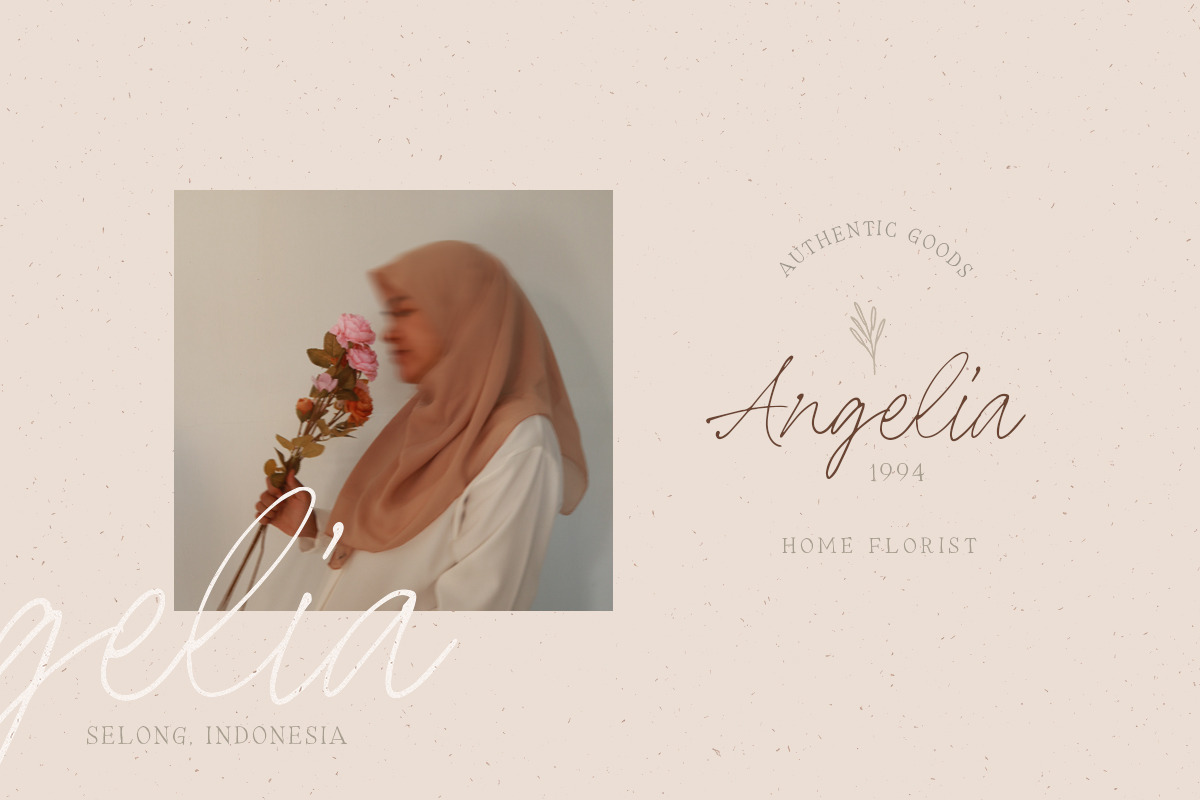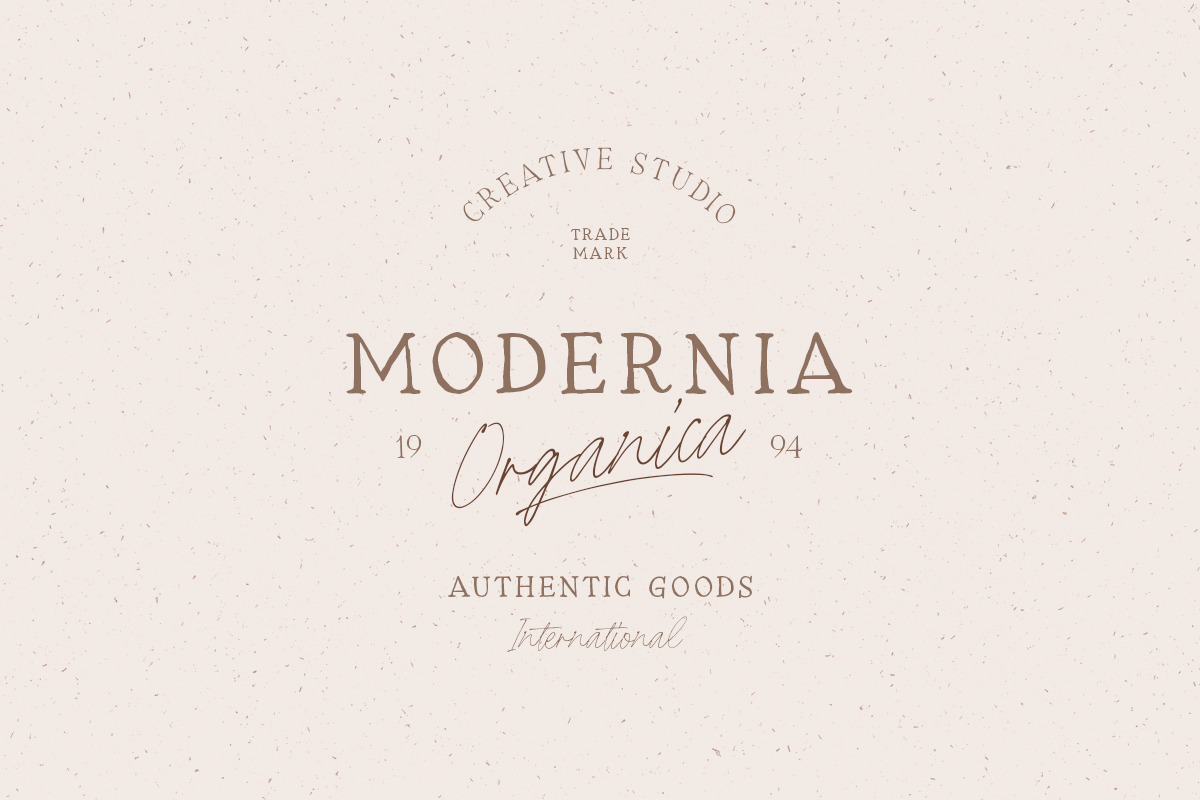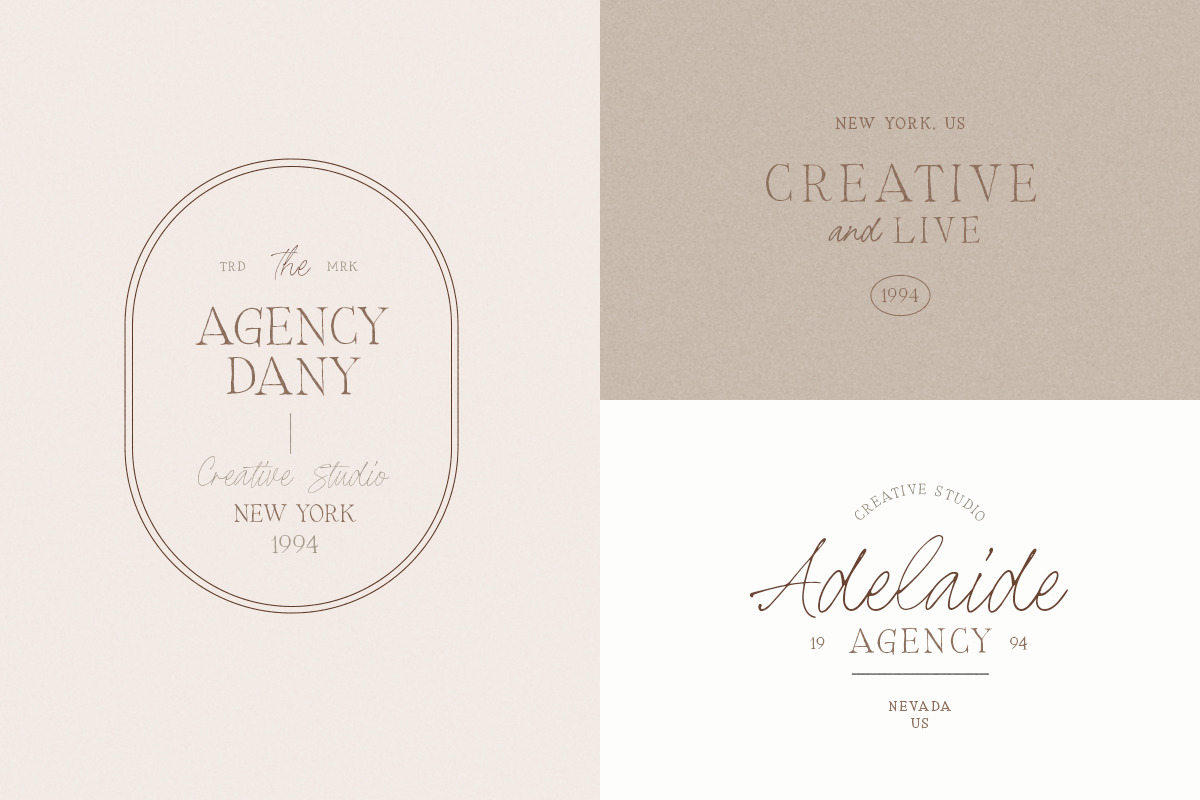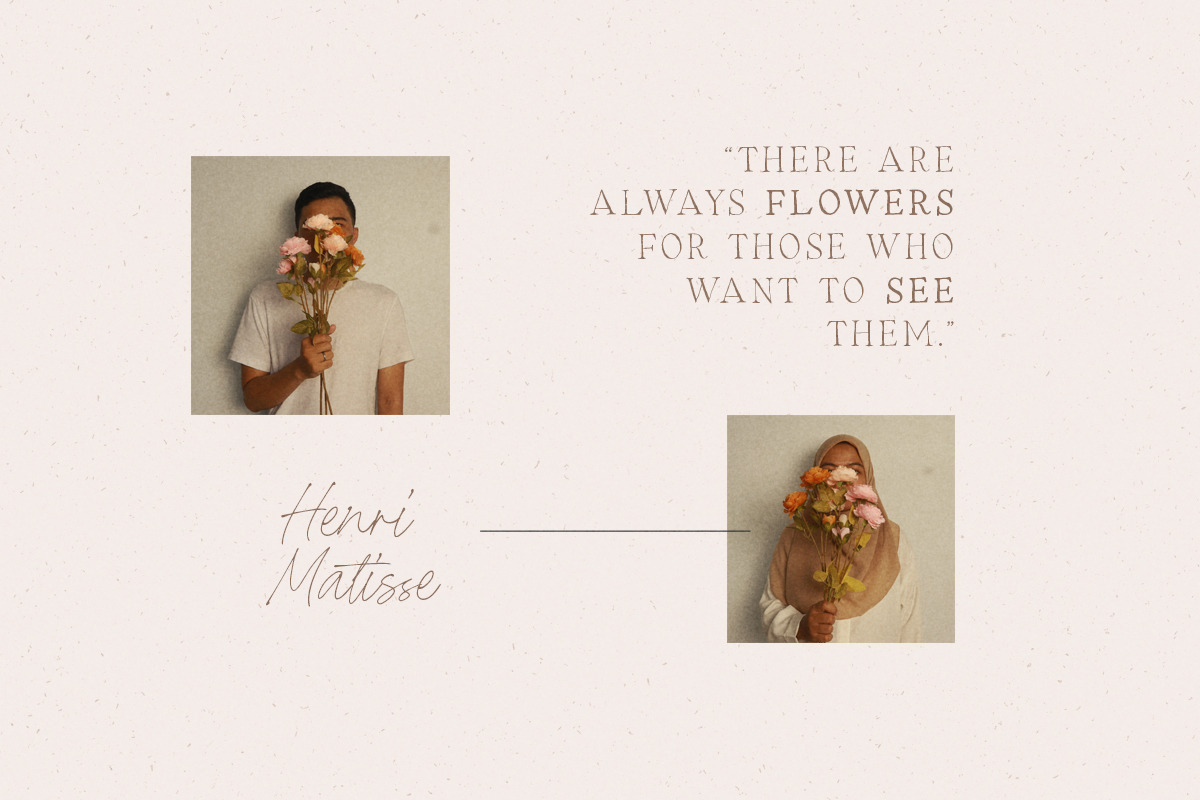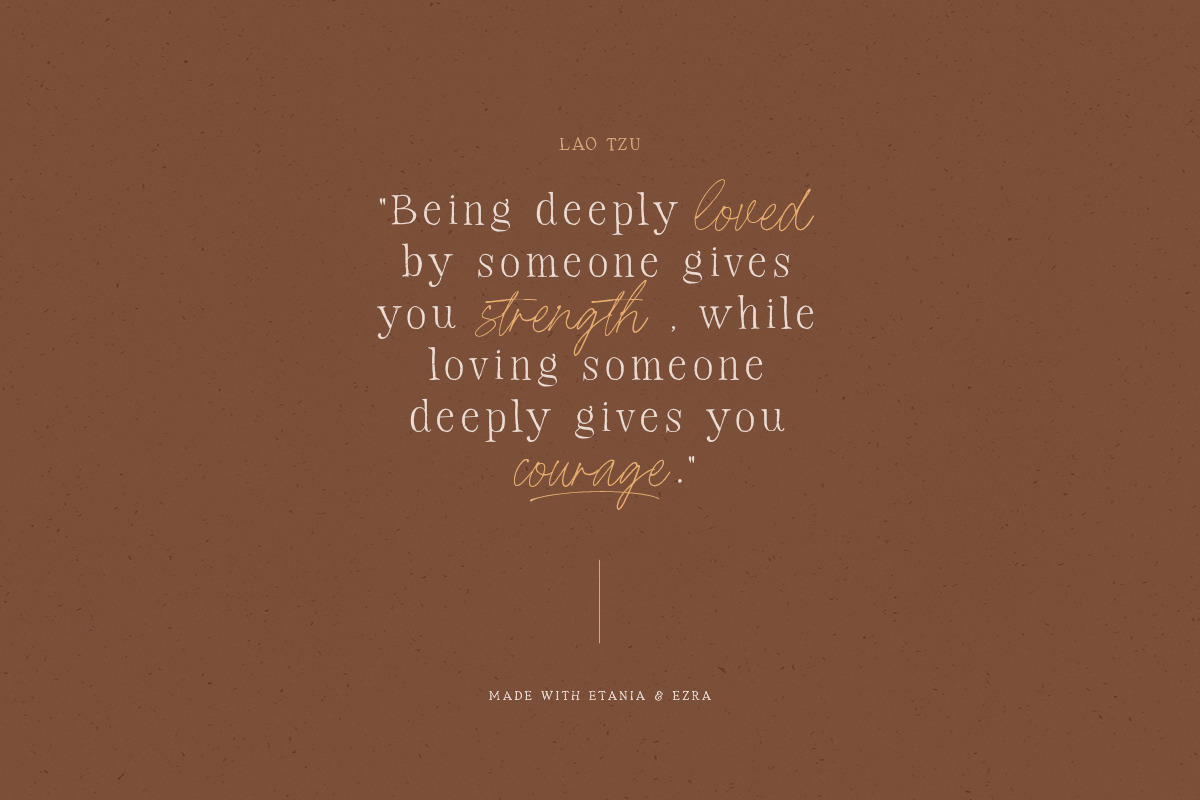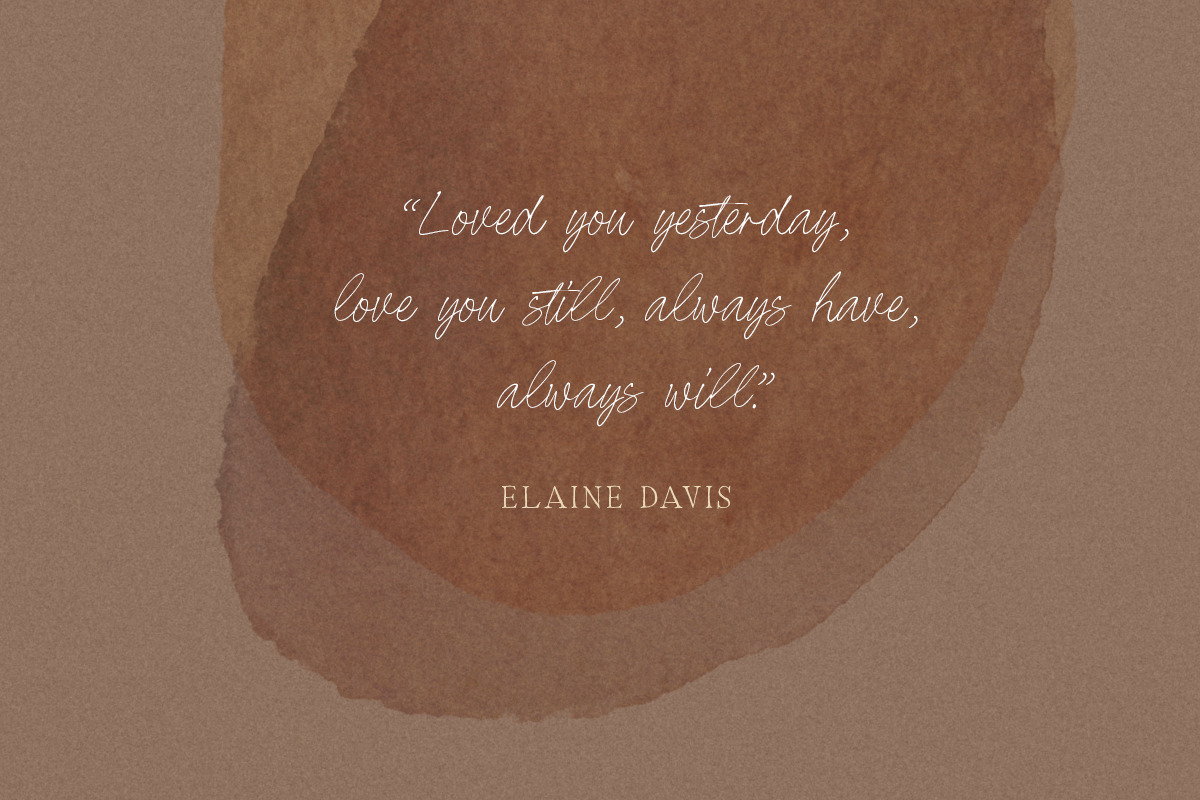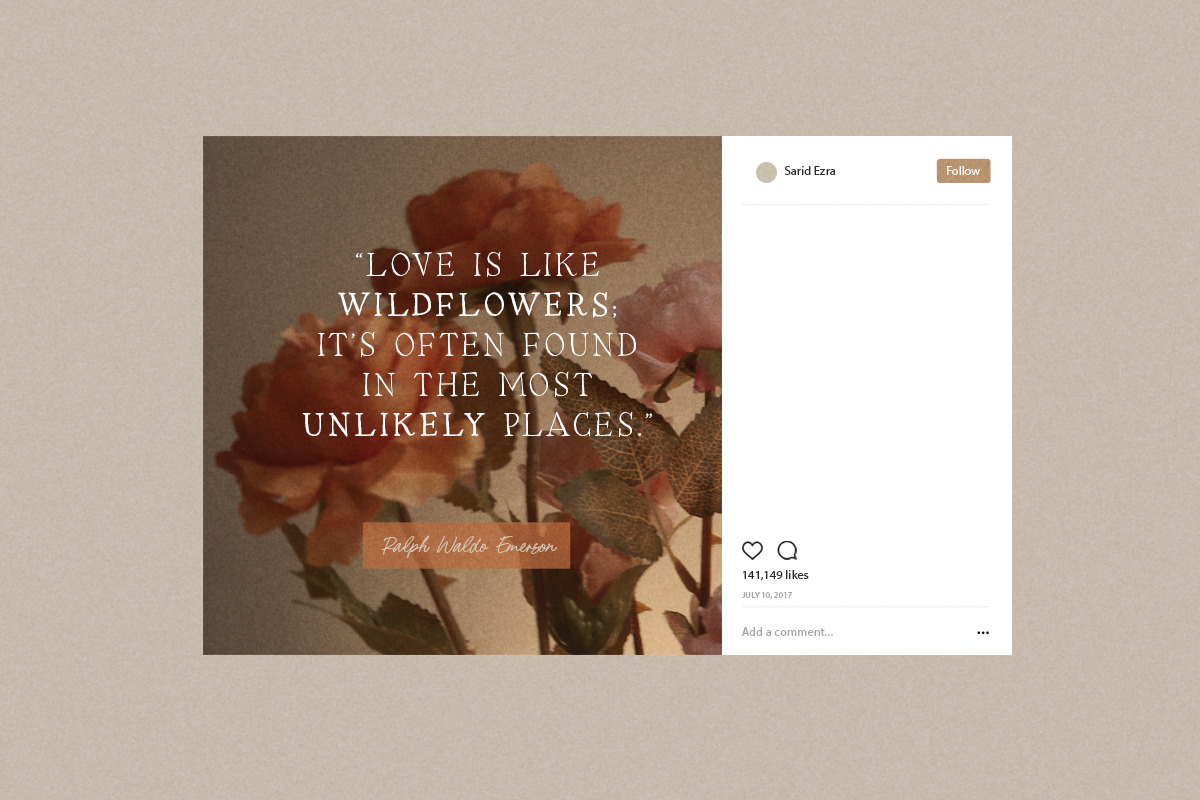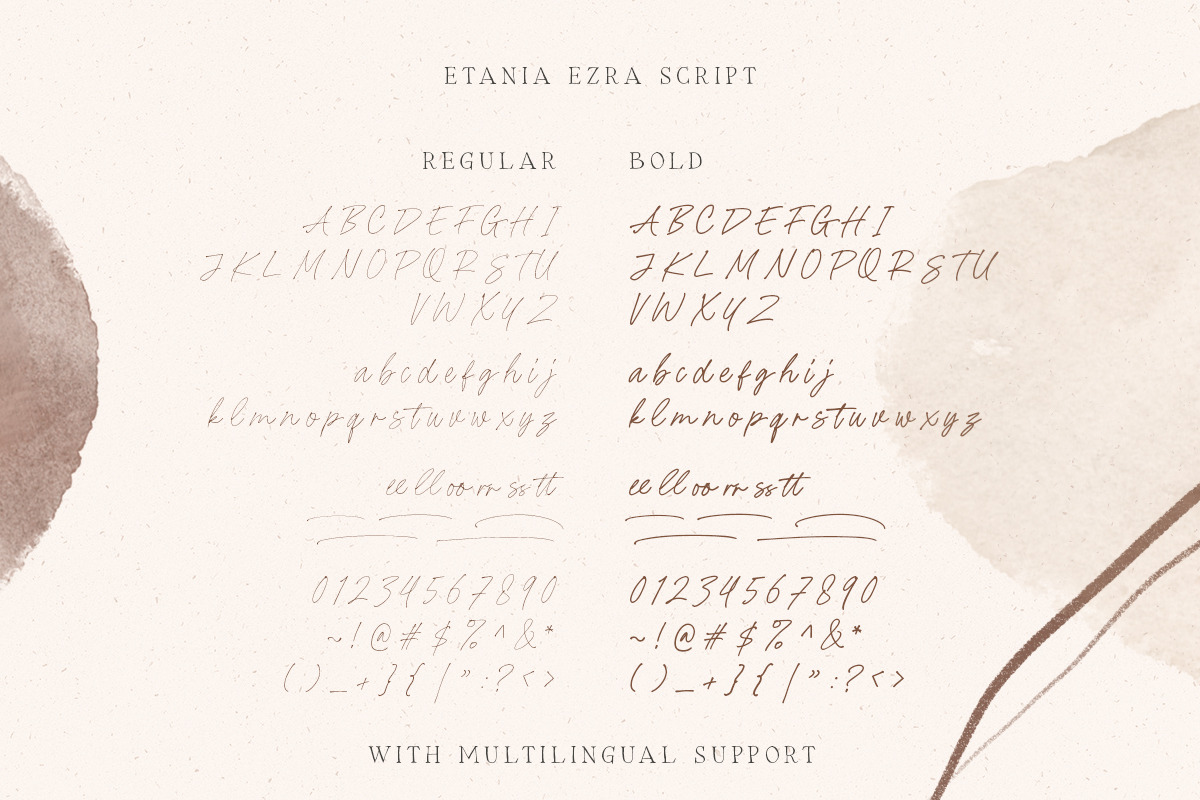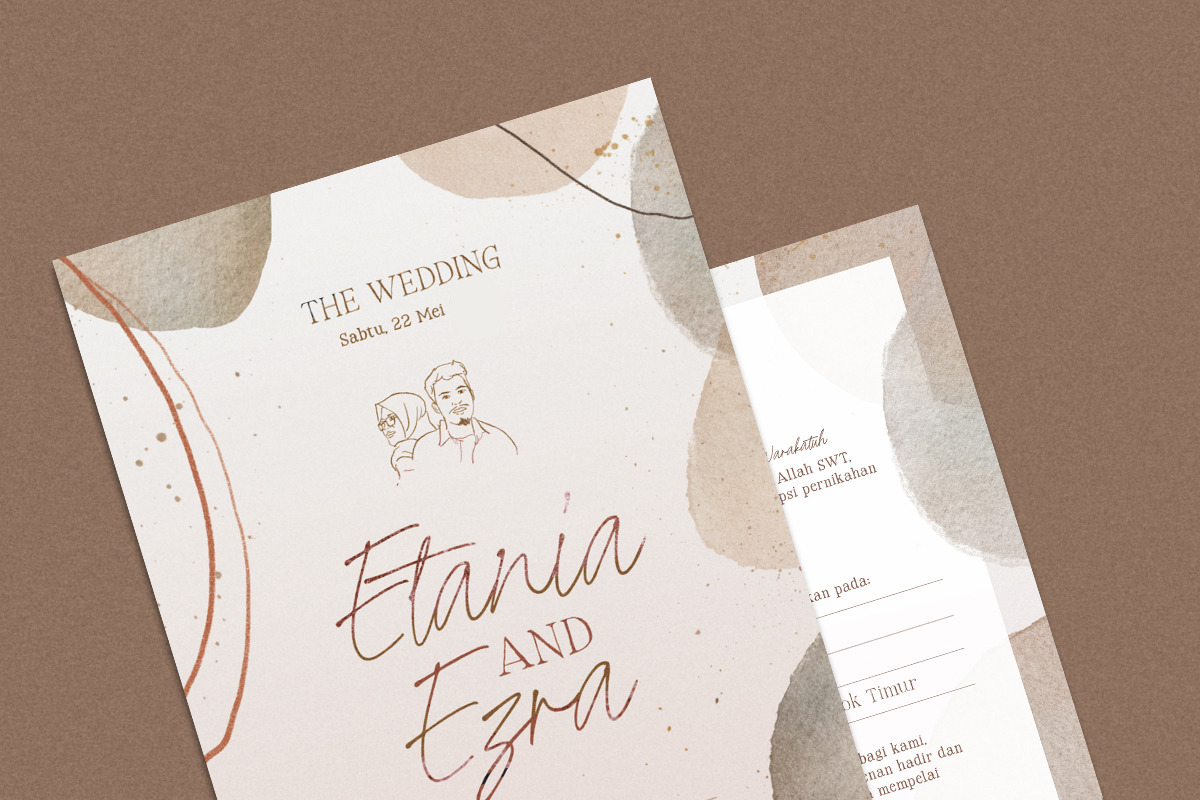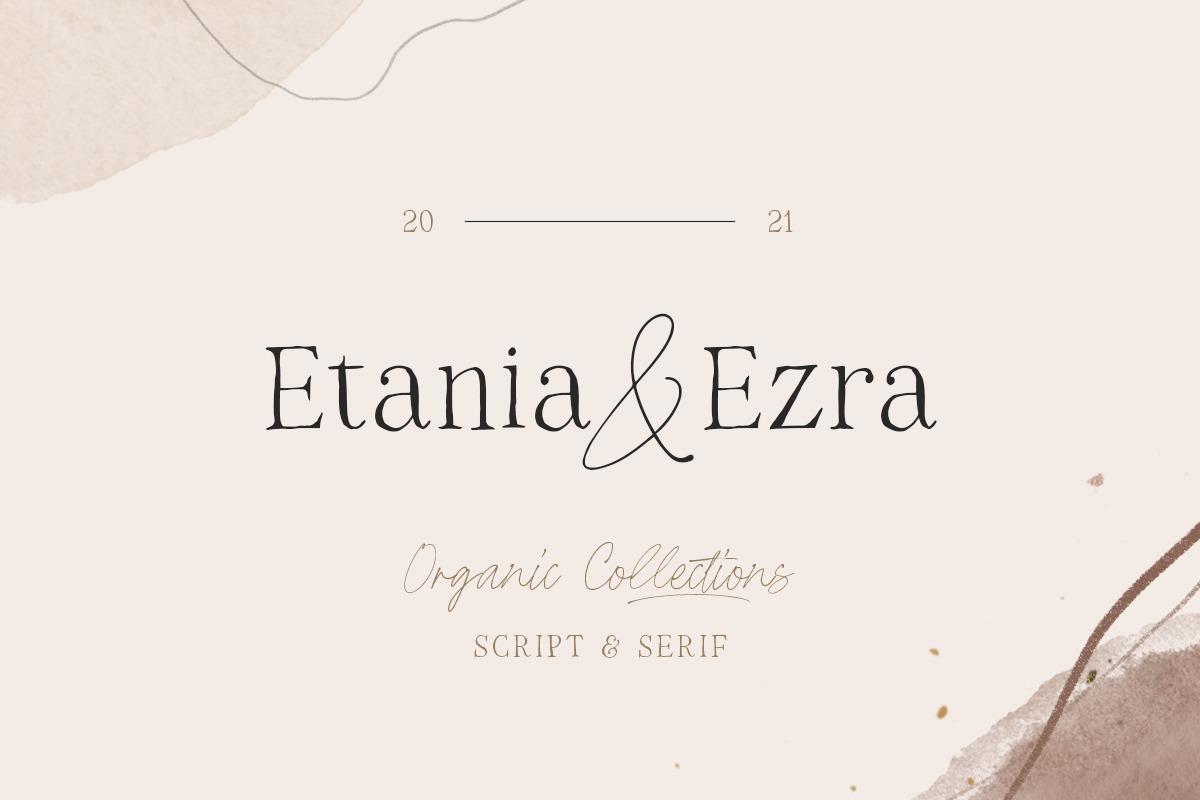
Etania & Ezra - Organic Font Duo
Introducing, Etania & Ezra, organic font collections, including serif and script!
Etania & Ezra is a font family that have four fonts total in the package. Including serif and script with regular and bold style. This font is so special, you can feel the hand crafted and minimalist yet applicable in this fonts. Besides for wedding invitations, you can use this fonts for many occasions such as branding, logotype or even quotes. If you are looking fonts with handmade and organic vibes, this font will fulfill what you needs. This font also support multilingual!
I made this fonts for my own wedding invitations last year. For my first anniversary, i decided to release this font to public. Hope you like it as much as we do!